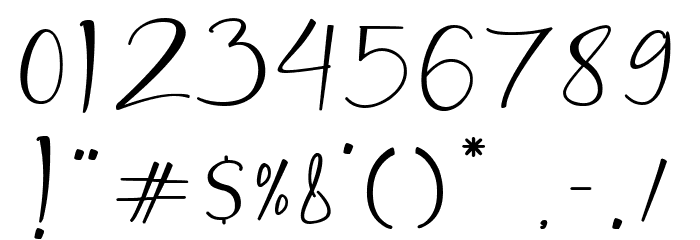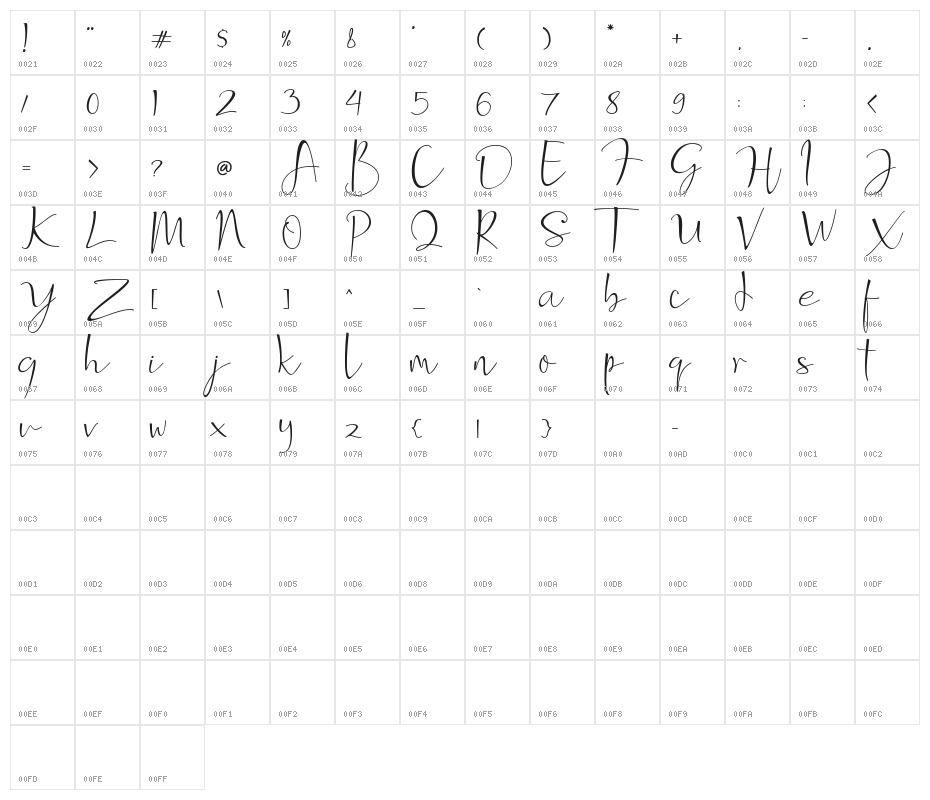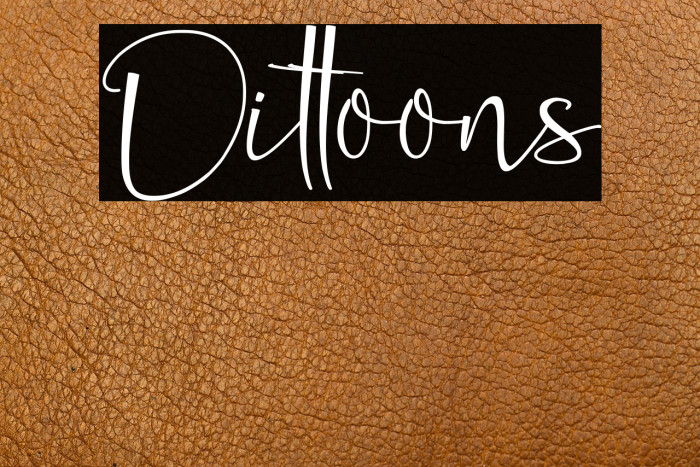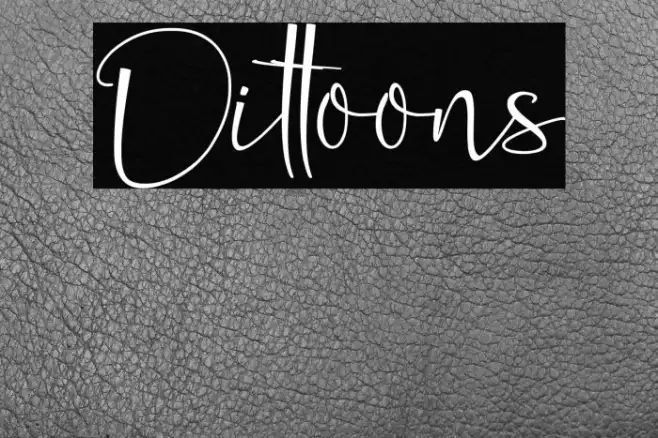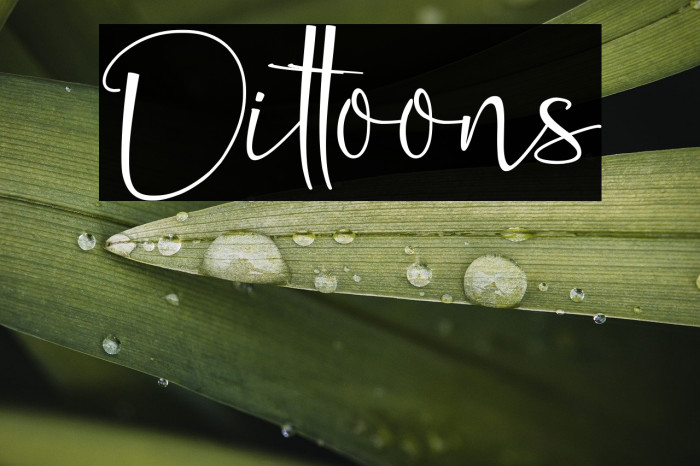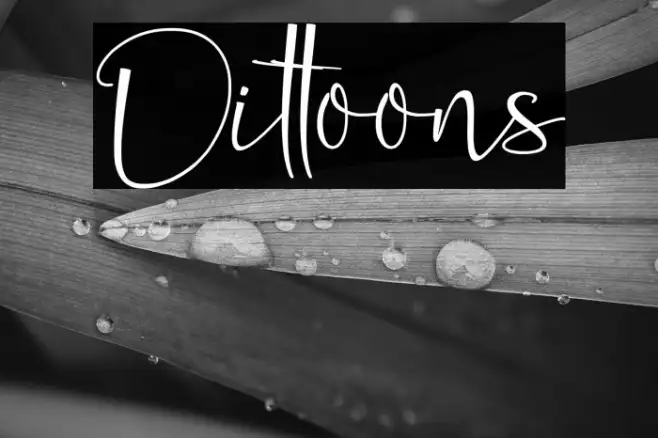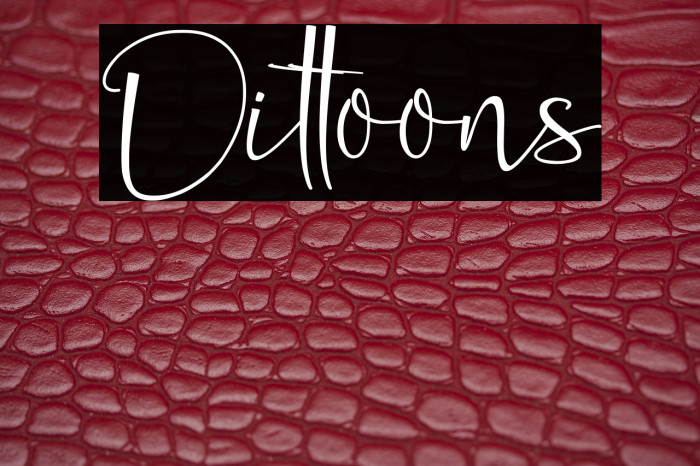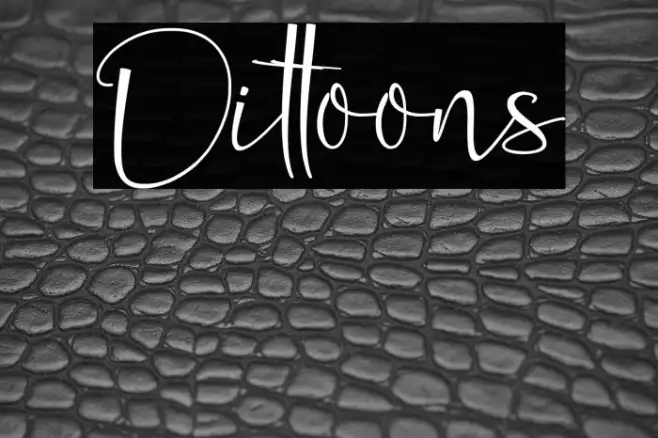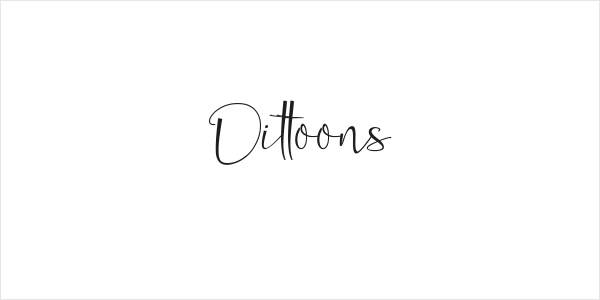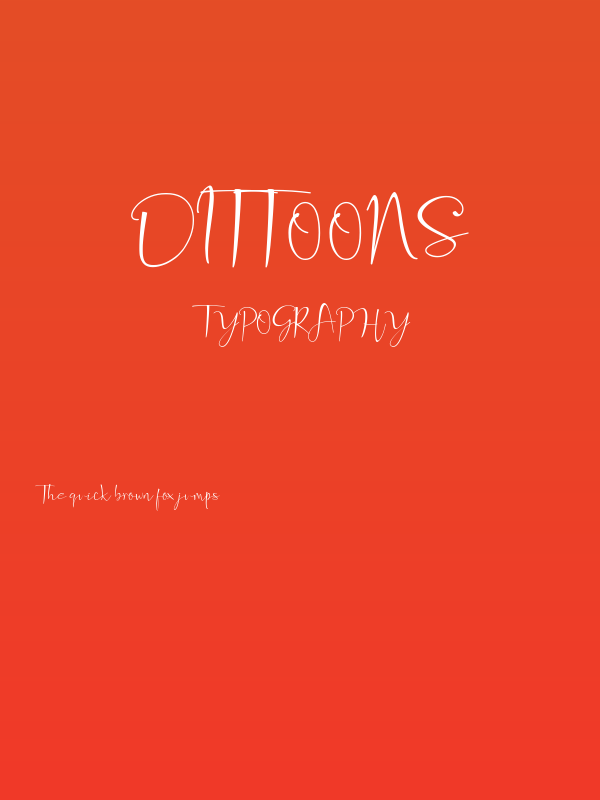
Dittoons Font
Dittoons Description
This font exhibits a playful and whimsical handwritten style, characterized by its fluid and flowing letterforms. The uppercase letters are bold and expressive, with a slight slant that adds a dynamic feel. The lowercase letters maintain a consistent style, with elongated ascenders and descenders that enhance the font's lively appearance. The numbers are equally playful, with a unique flair that makes them stand out. Special characters are integrated seamlessly, maintaining the overall aesthetic. The font's irregular stroke widths contribute to its casual and informal vibe, making it suitable for creative and artistic projects.
| Overall Style | Whimsical |
| Use Case | Headlines, Creative projects, Informal text |
| Proposed Projects | Ideal for greeting cards, invitations, children's books, and creative branding projects. |